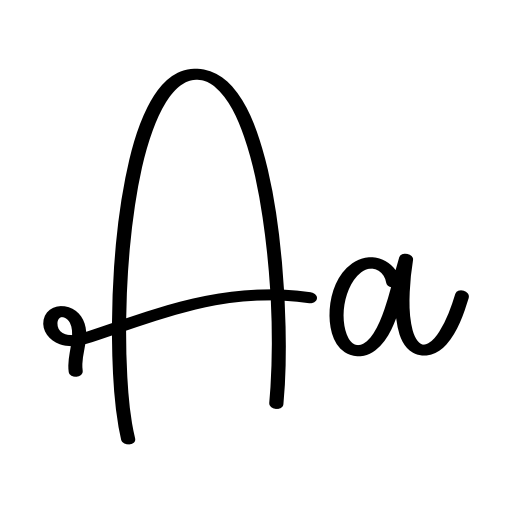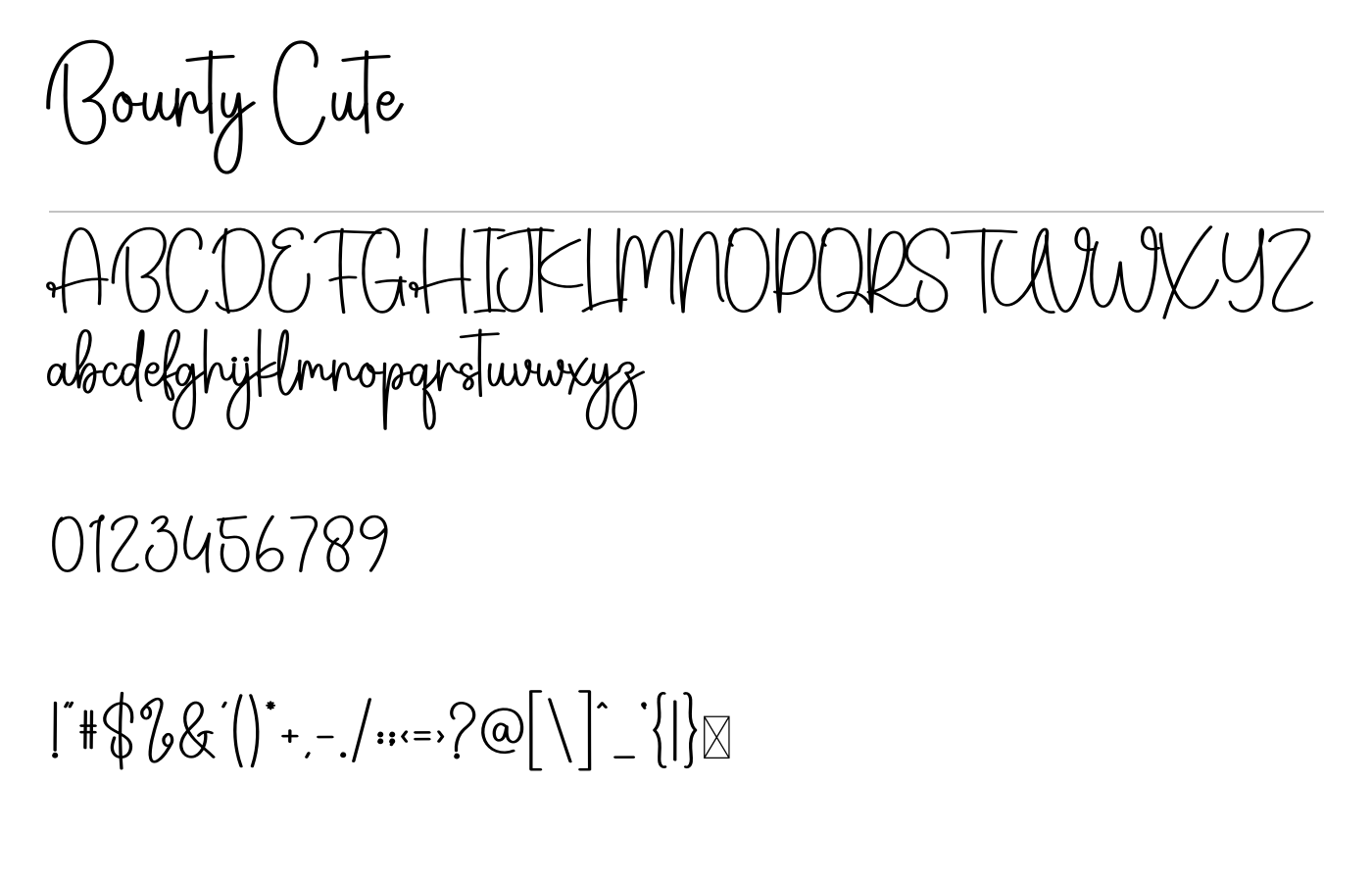
Bounty Cute is a playful, handwritten script font with a light weight and tall, narrow letterforms that create an airy and casual feel. Its smooth, rounded strokes and whimsical details make it perfect for designs that want to convey charm and friendliness, such as invitations, greeting cards, or children’s products. This font works well for headers and logos where a personal, approachable touch is desired.
Bounty Cute Font